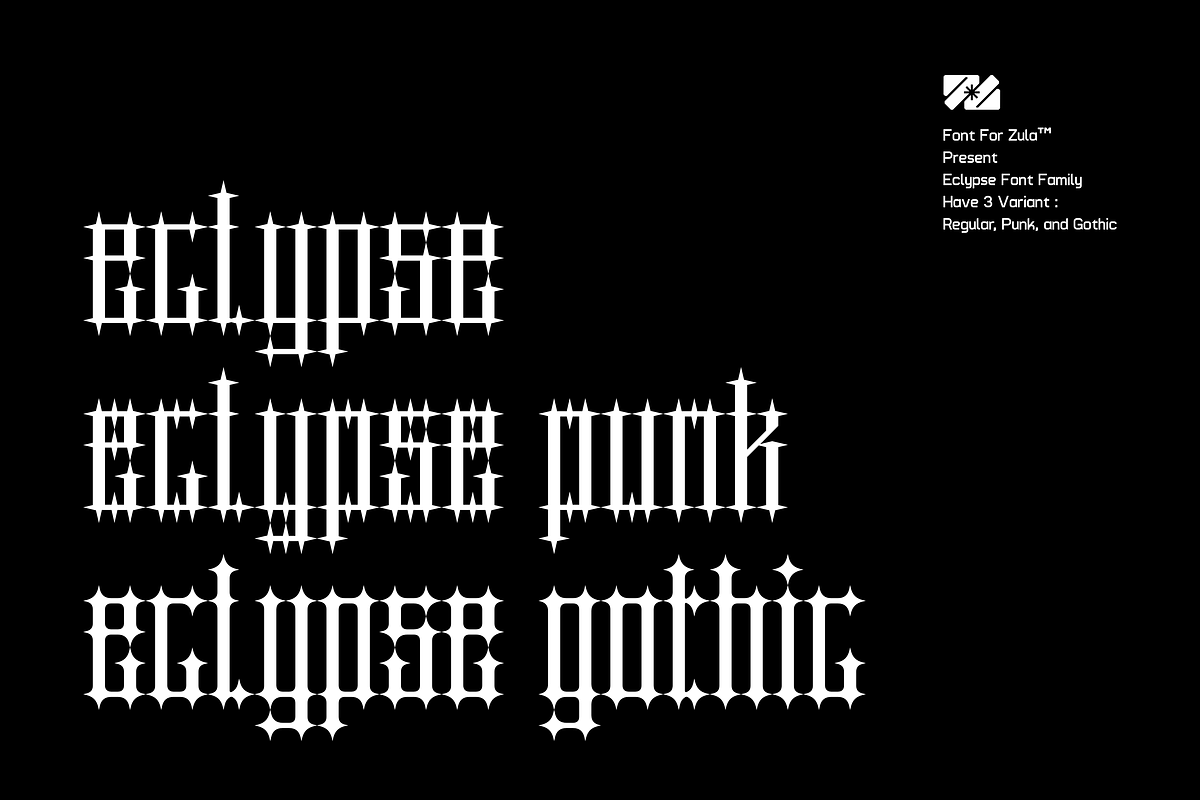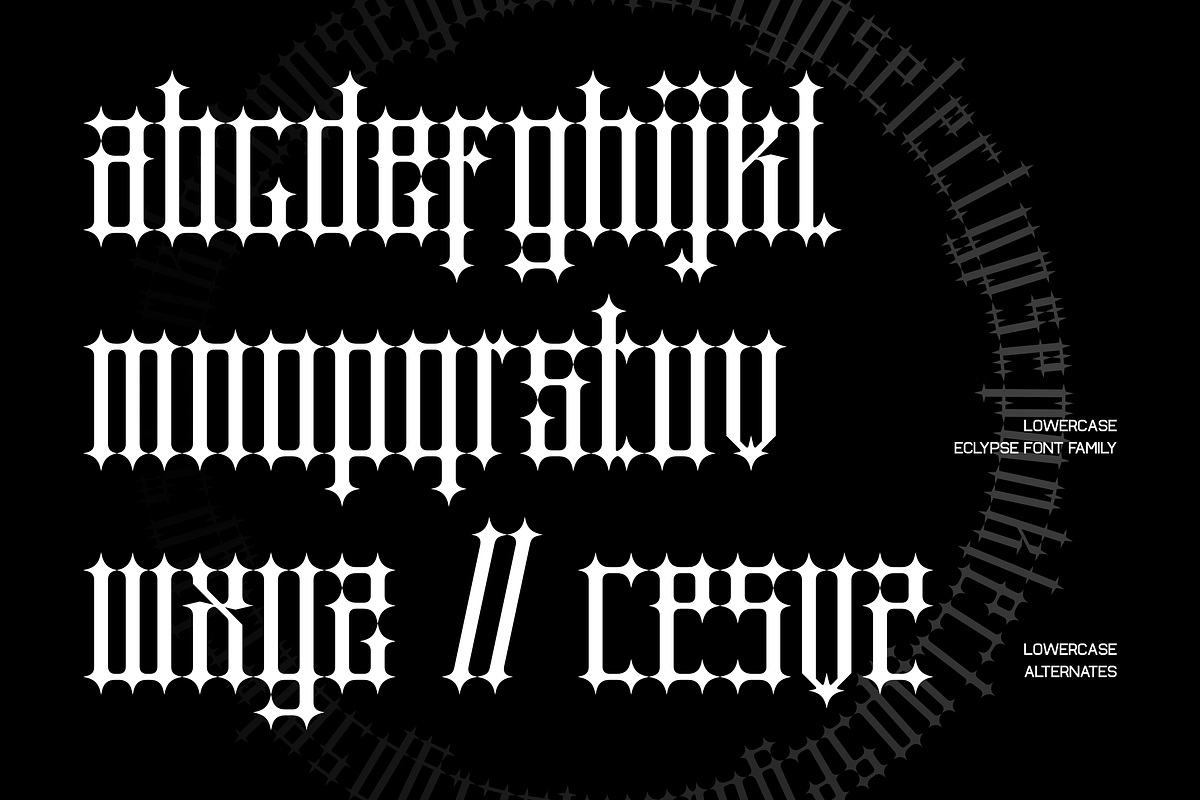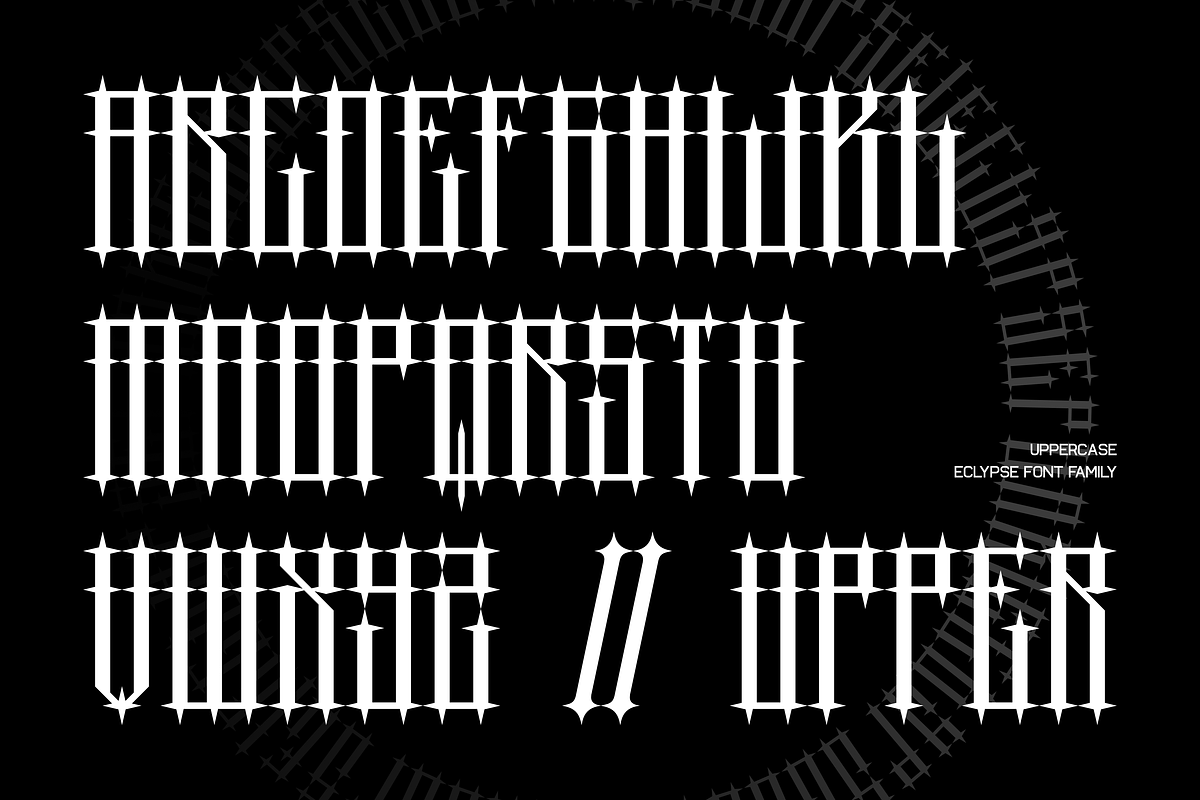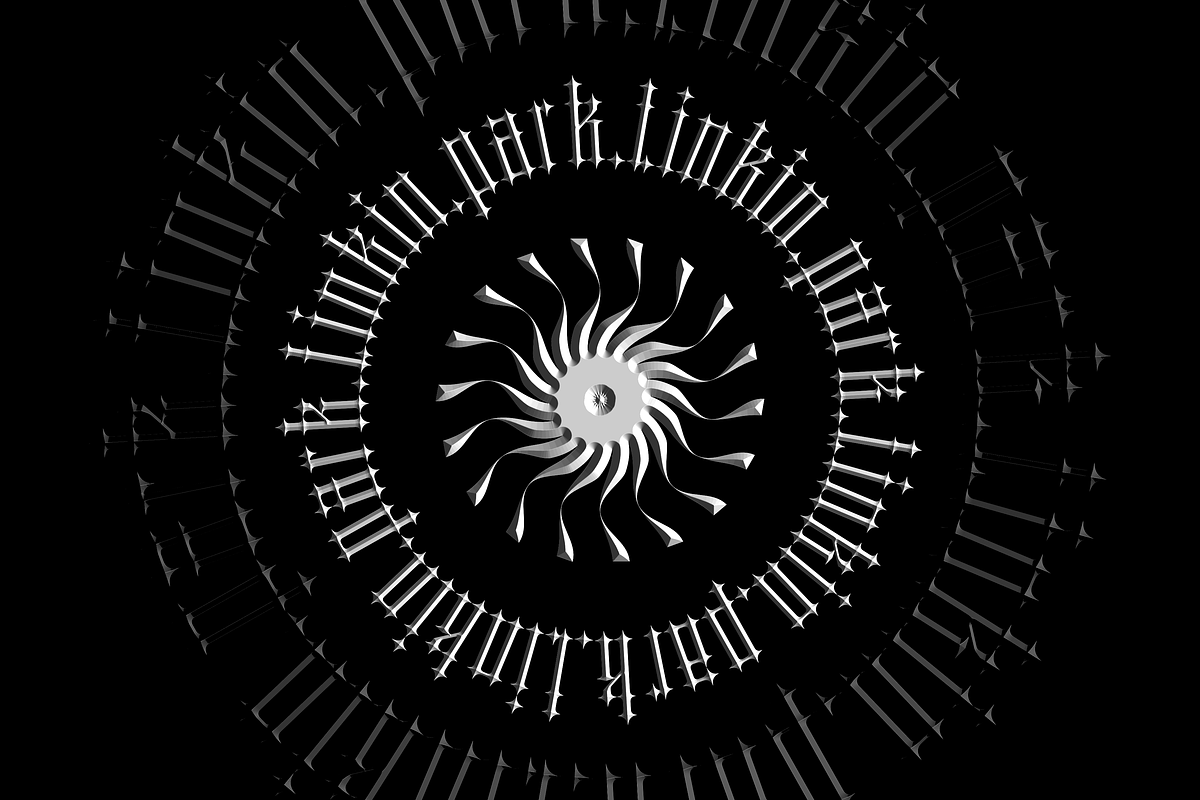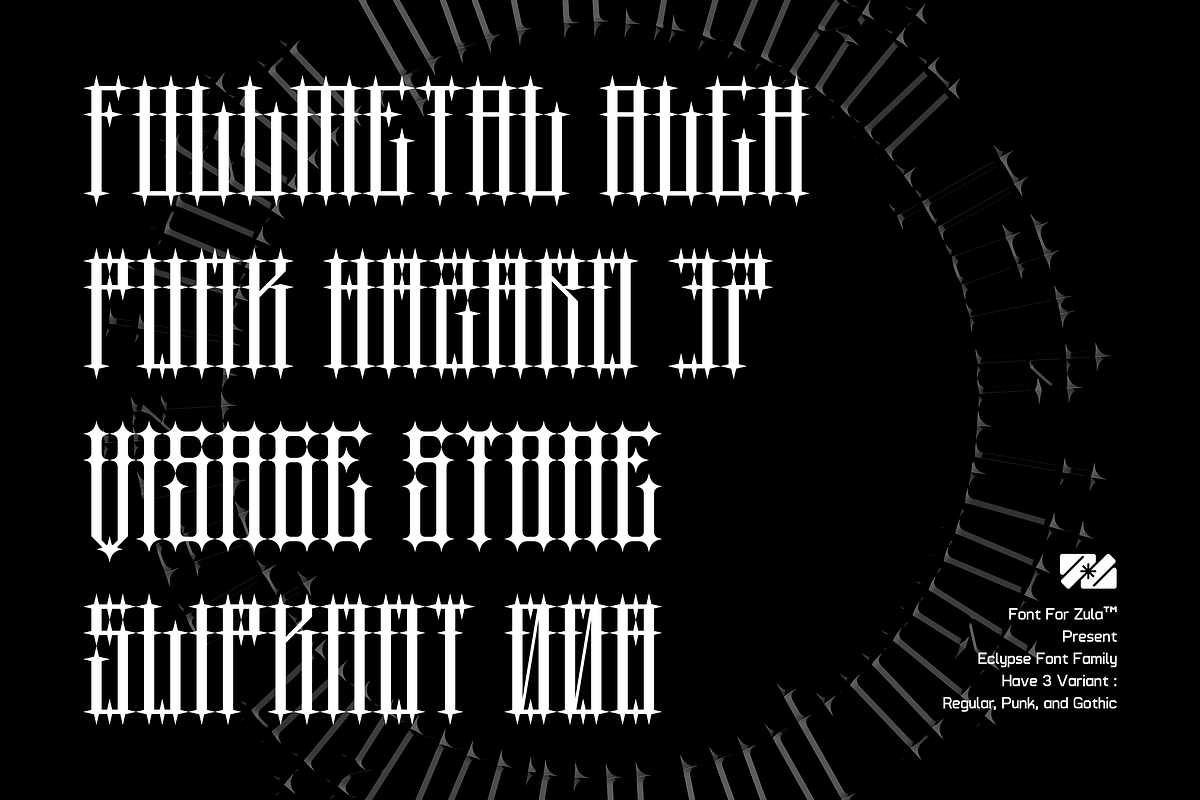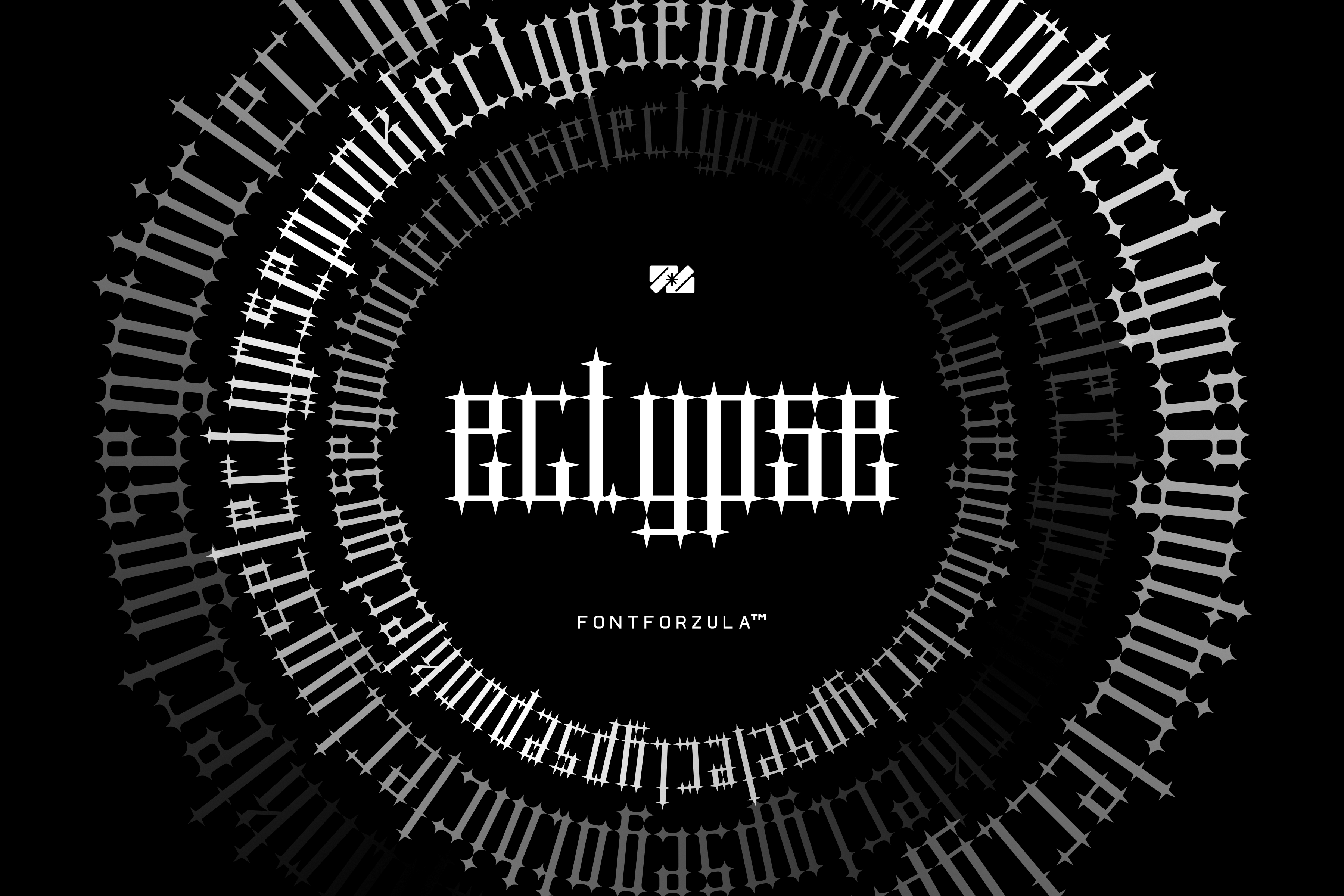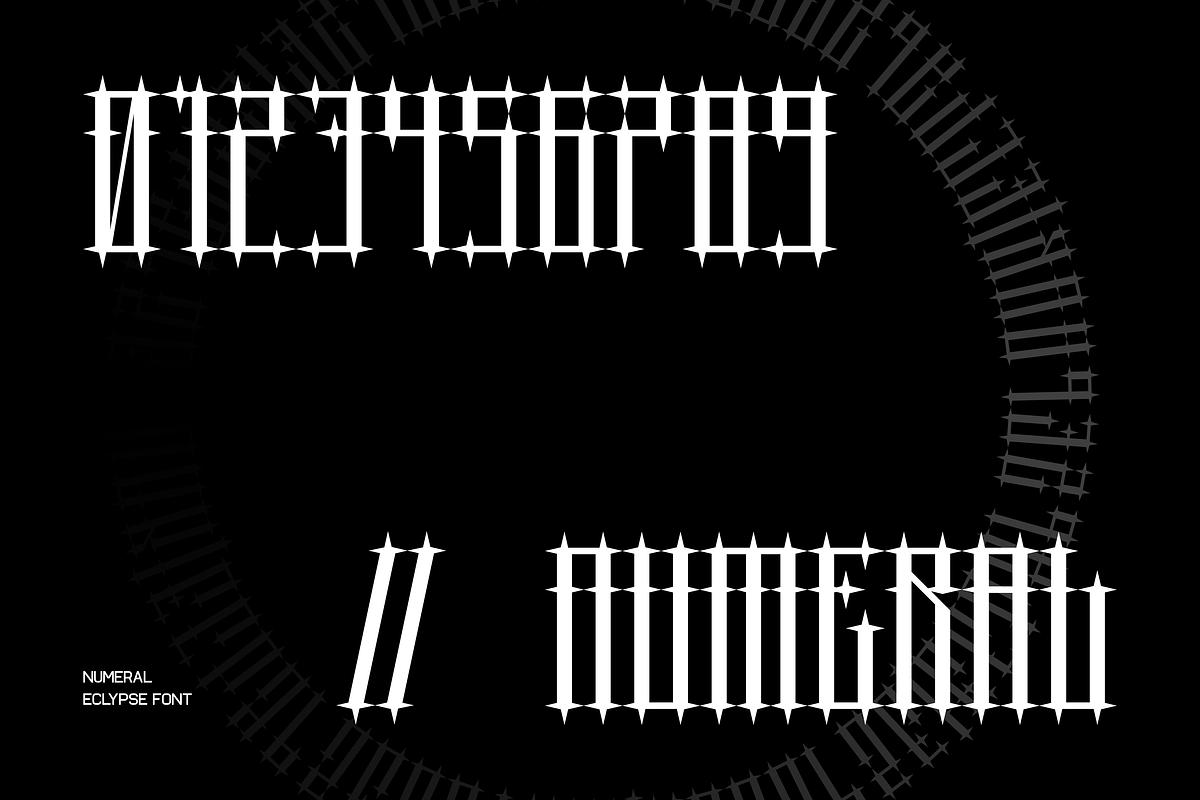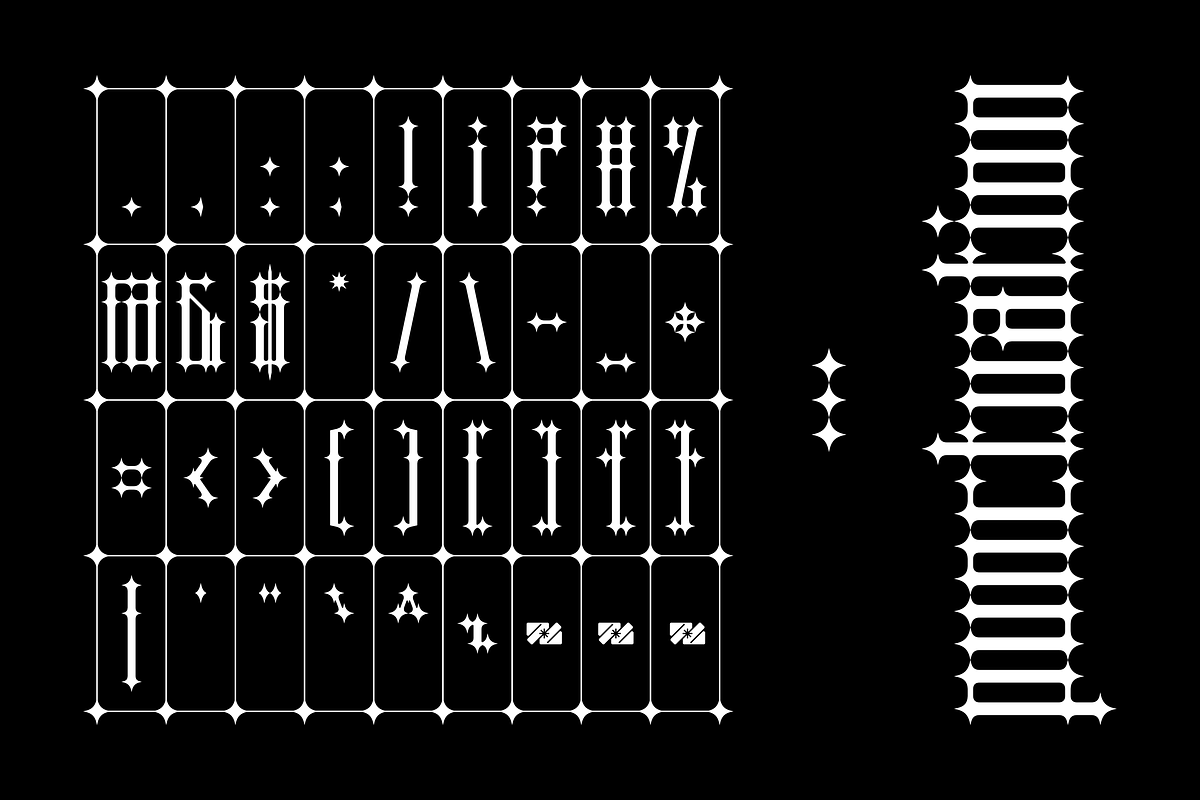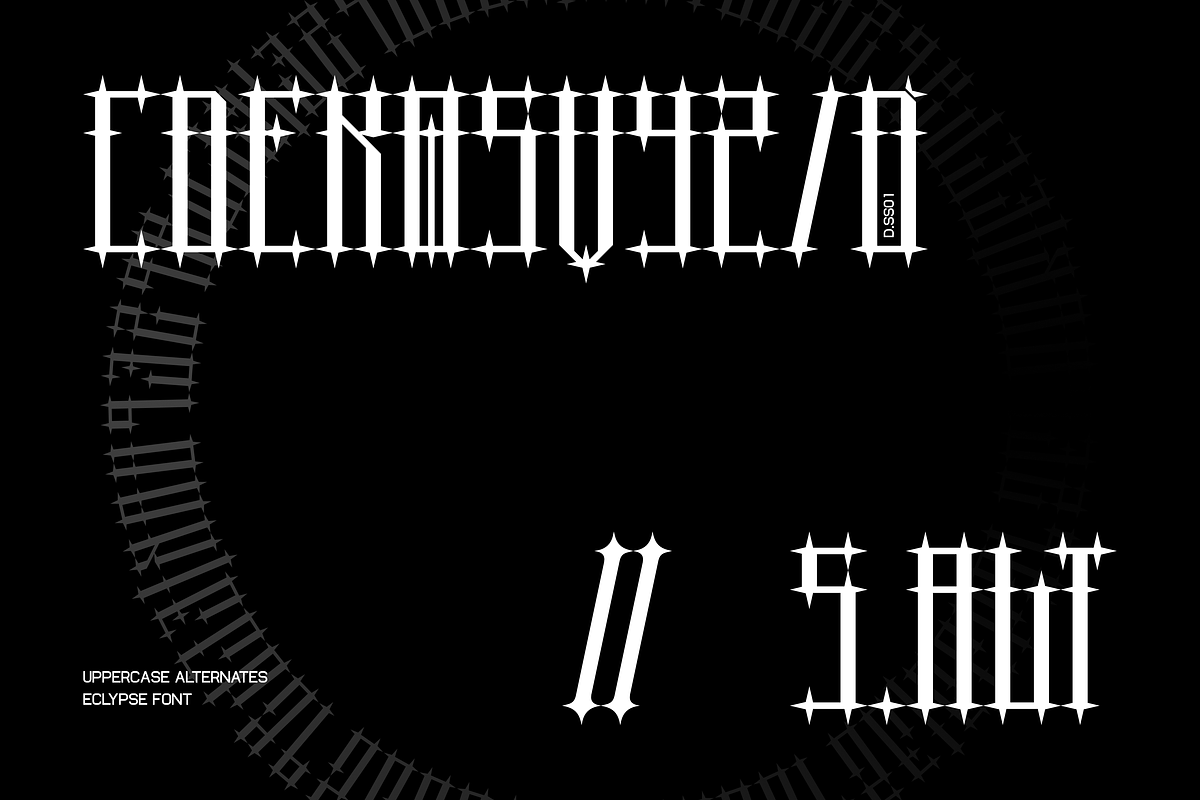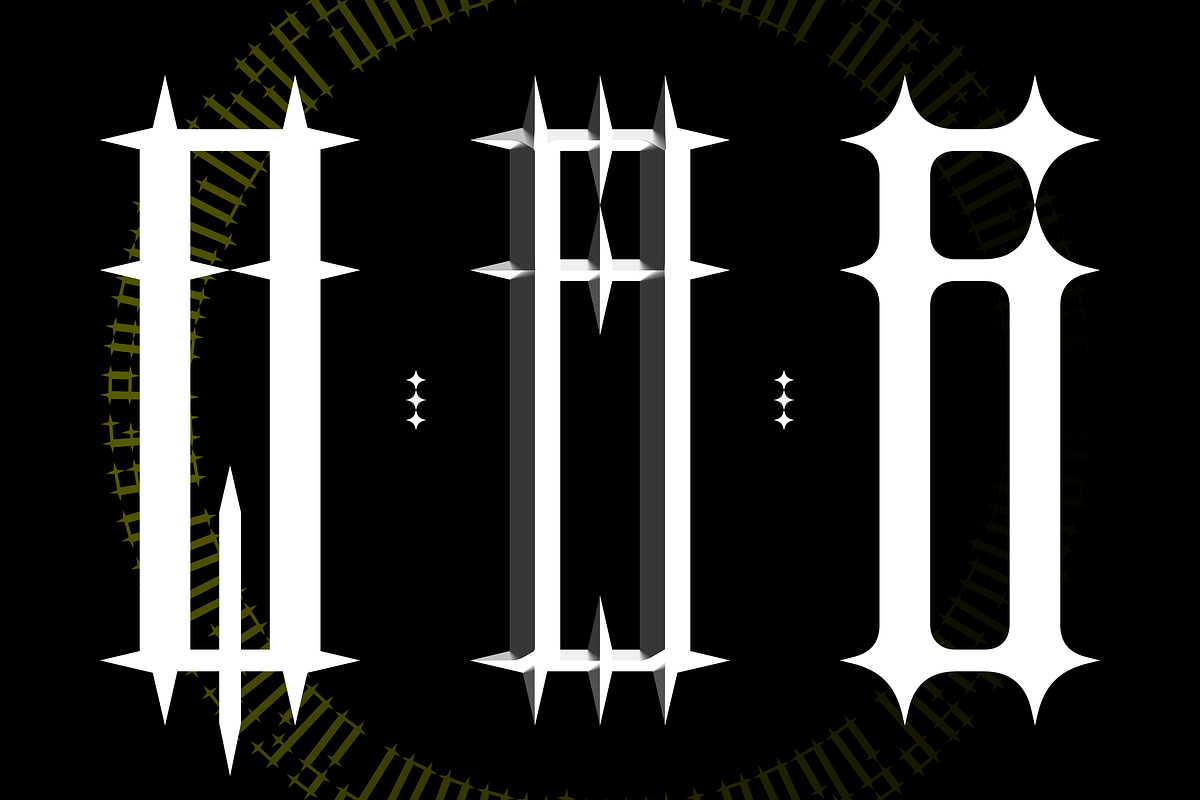
Eclypse Font Family
Eclypse is a typeface with an appearance that has a mystical, metal, semi-horror and unique vibe. This font is inspired by the manga BERSERK. One of the moments in the manga is a called THE ECLIPSE MOMENT, at that time the atmosphere was very scary and mystical, plus this font adequately describes the antagonist of the manga, named GRIFFITH.
This font has three variants, namely regular, punk and gothic.
This font is suitable for use in apparel designs, posters, brands, and other projects.
Eclypse includes:
- 3 variants: regular, punk and gothic
- 26 UPPERCASE
- 10 Uppercase alternates
- 26 lowercase
- 5 lowercase alternates
- 10 Numerals